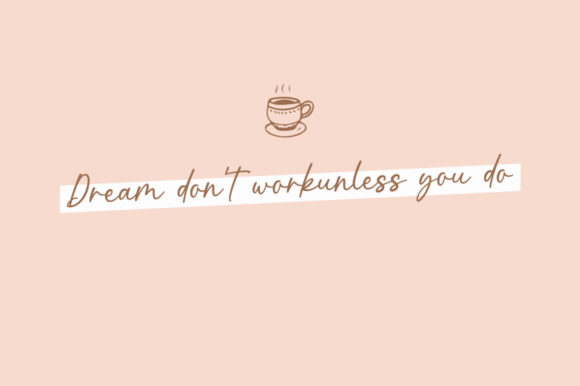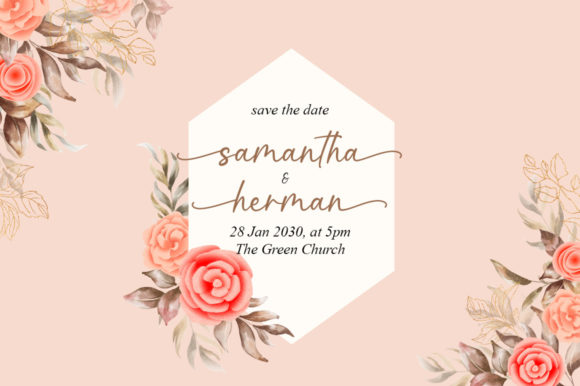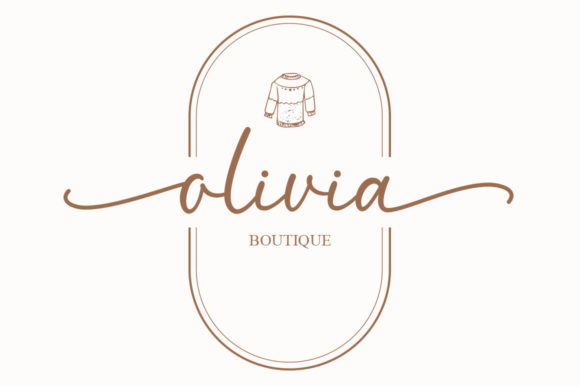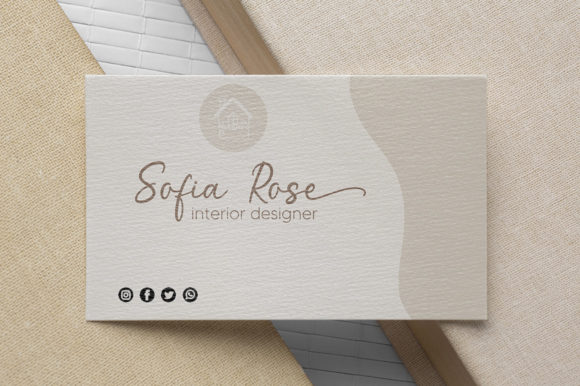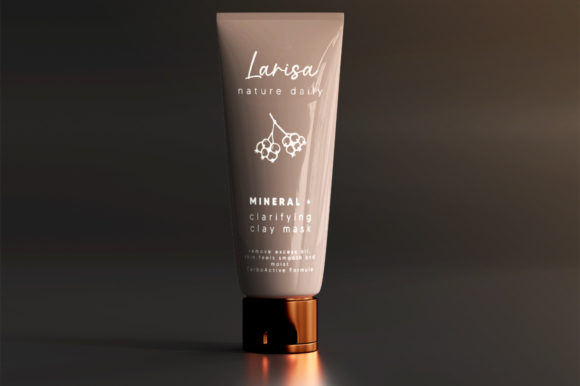
Unlocking the Magic of Autumn Beautiful Font
There’s nothing quite like the feeling of crafting the perfect design – the moment when all the elements come together in harmony, and your vision finally takes shape. As designers, we’ve all been there, pouring over fonts, colors, and textures, searching for that special something that sets our work apart. And that’s exactly where Autumn Beautiful Font comes in – a lovely and delicate script font that exudes elegance and class.
With its PUA encoding, you can access all glyphs and swashes with ease, giving you the freedom to create truly unique and personalized designs. Whether you’re working on a wedding invitation, a baby shower card, or a special holiday project, Autumn Beautiful Font is the perfect choice. Its versatility and charm make it a valuable addition to any designer’s toolkit, and we can’t wait to explore its possibilities with you.
Autumn Beautiful Font Key Features
- Unique Characteristics: The Autumn Beautiful Font features a unique blend of organic and geometric elements, giving it a distinctive and eye-catching appearance.
Autumn Beautiful Font Review
Overall, I’d say that Autumn Beautiful Font is a solid choice for designers looking to add some autumnal flair to their projects. Here are some of its highlights:
- ✨ Unique and whimsical design: The font’s intricate details and organic feel make it perfect for creating a cozy, seasonal atmosphere.
- ✨ Great for headings and titles: Autumn Beautiful Font’s bold and playful style makes it an excellent choice for headings and titles, adding a touch of personality to your designs.
- ✨ High-quality vectors: The font comes with high-resolution vectors, making it suitable for large-scale designs and prints.
- ⚠️ Limited character set: Autumn Beautiful Font has a relatively small character set, which might limit its usability for longer texts or complex projects.
- ⚠️ May not be suitable for small text: Due to its intricate design, Autumn Beautiful Font might become difficult to read at small font sizes.
Overall, I think Autumn Beautiful Font is a great choice for designers who want to add a touch of autumnal charm to their projects. While it has some limitations, its unique design and high-quality vectors make it a solid addition to any design library.
Tips for Getting the Most Out of Autumn Beautiful Font
To get the most out of Autumn Beautiful Font, use it to create:
- Beautiful and eye-catching titles and headings.
- Intricate and detailed typography.
- Seasonal and autumn-themed designs.
Common use cases for Autumn Beautiful Font include:
- Autumn-themed invitations and event materials.
- Seasonal marketing materials and advertisements.
- Personalized gifts and stationery.
Q: Does the Autumn Beautiful Font support ligatures and contextual alternates?
Yes, the Autumn Beautiful Font includes ligatures and contextual alternates, which can be accessed through OpenType features. To enable these features, you can use a font editor or a design application that supports OpenType, such as Adobe InDesign or Illustrator.